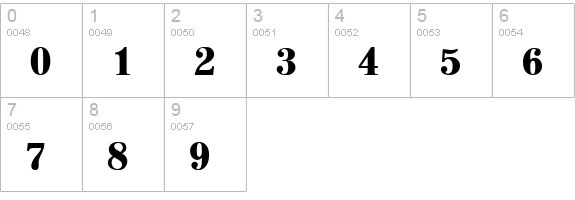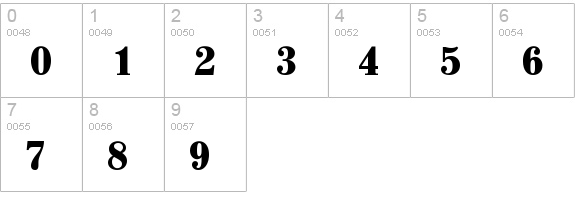
Lucia Display SSi Font Details
Lucia Display SSi font is a stunning and elegant typeface that exudes sophistication and charm. With its sleek lines and stylish curves, this font is perfect for adding a touch of class to any design project. Whether you're creating a logo, poster, or website, Lucia Display SSi font is sure to make a lasting impression. The best part is that Lucia Display SSi font is completely free! You can easily download this beautiful typeface at FontsMarket.com and use it for any personal or commercial project. Don't miss out on this amazing opportunity to elevate your designs with the timeless beauty of Lucia Display SSi font.